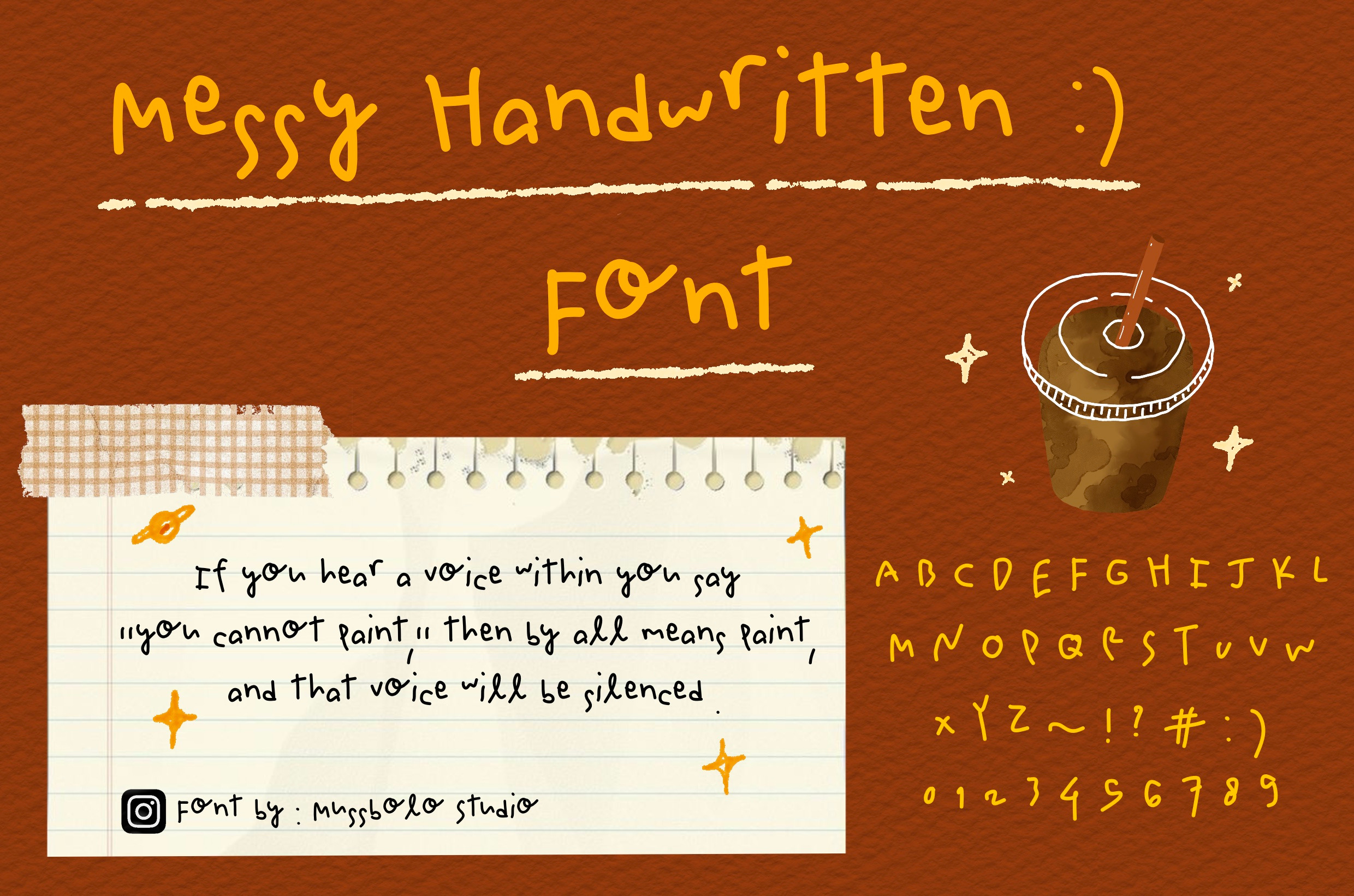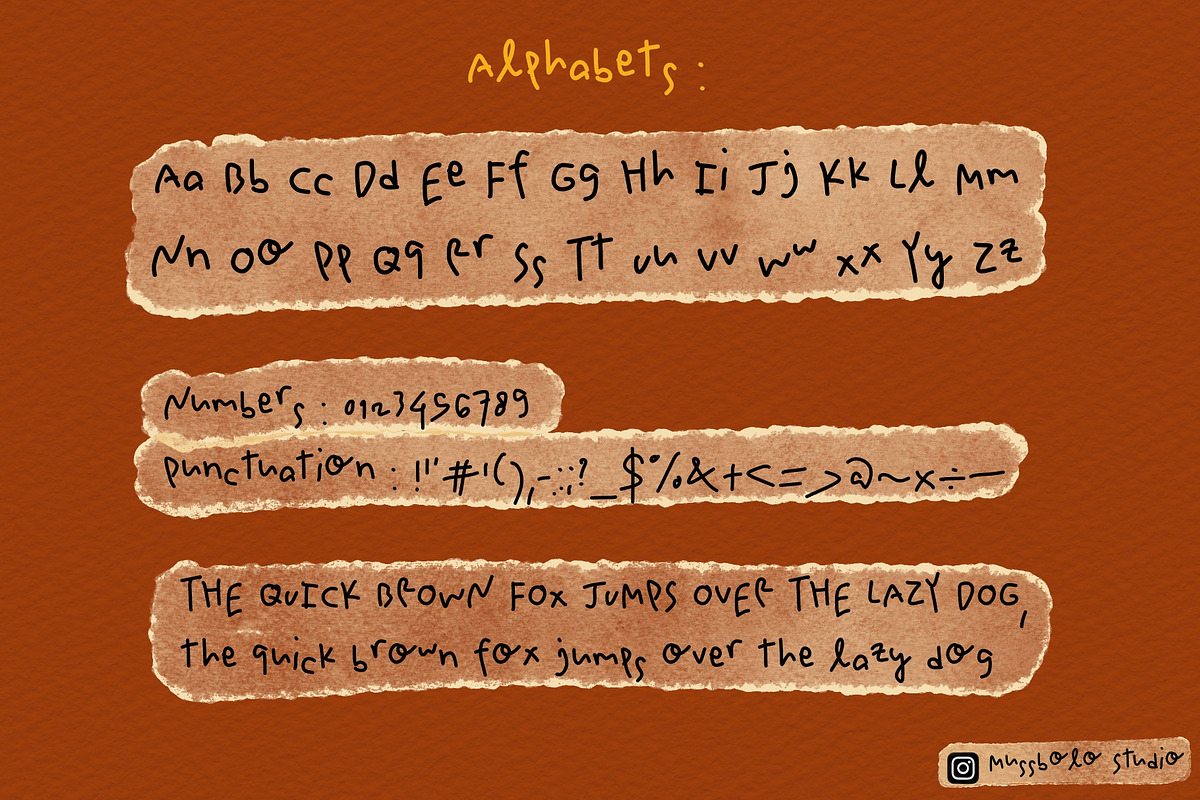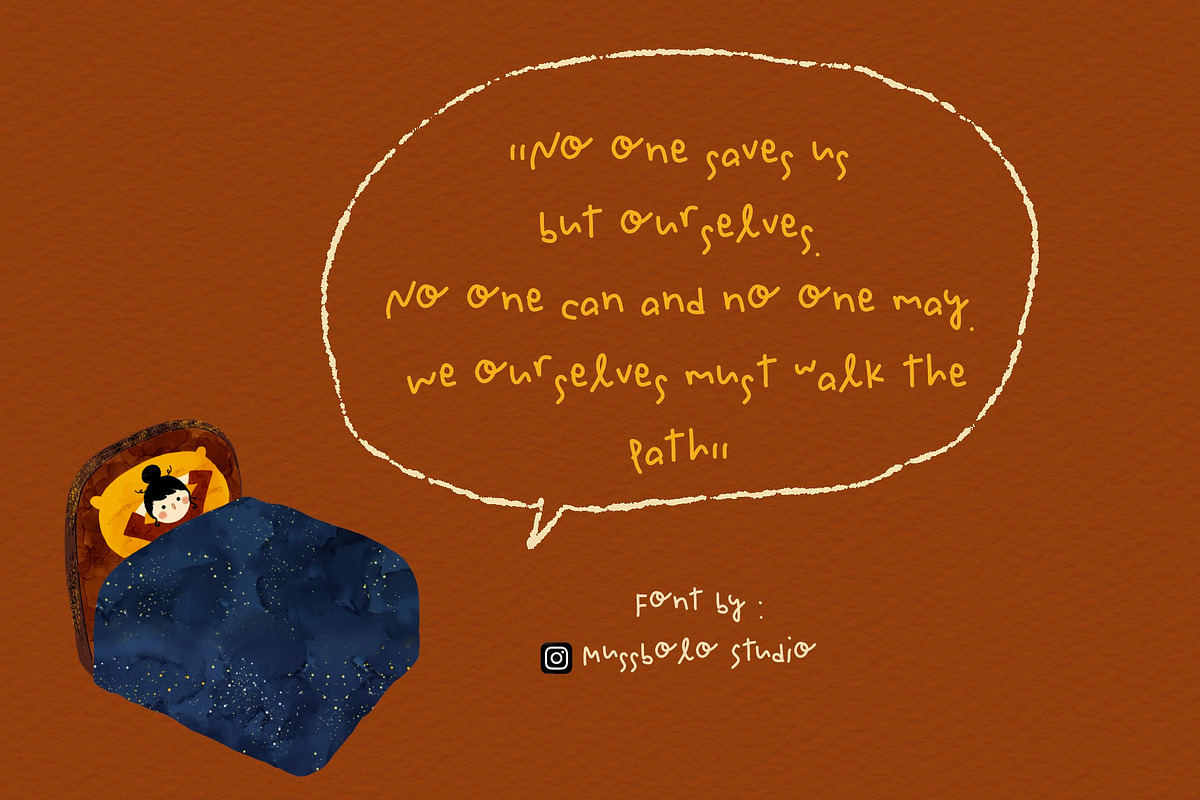
Messy Handwriting Font -Doodle font
Messy Handwritten Font by Mussbolo Studio is a natural, imperfect handwritten typeface inspired by spontaneous pen strokes and raw personal notes. It carries a playful yet honest character — imperfect, expressive, and full of personality.
- Social media content/vlog/feed
- Branding & logo
- Packaging
- Digital planners
- Quotes & aesthetic posts
- Invitations
- Creative projects